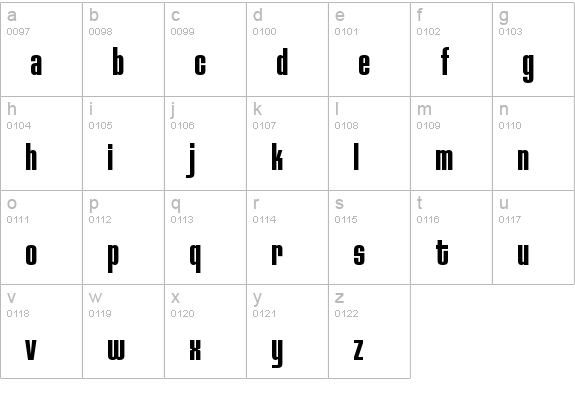
HouseGothic BoldOne Font Details
HouseGothic BoldOne is a striking and powerful font that commands attention with its bold and distinctive design. This font exudes a sense of strength and sophistication, making it perfect for headlines, logos, and other display purposes. The sharp angles and clean lines of HouseGothic BoldOne give it a modern and edgy look that sets it apart from other fonts. What's even better is that HouseGothic BoldOne is available for free download at FontsMarket.com. This means you can add this eye-catching font to your collection without having to spend a dime. Whether you're working on a branding project, creating posters, or designing a website, HouseGothic BoldOne is sure to make a bold statement and leave a lasting impression. Download it now and unleash the power of this striking font in your designs.